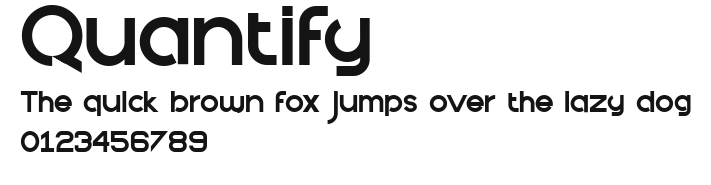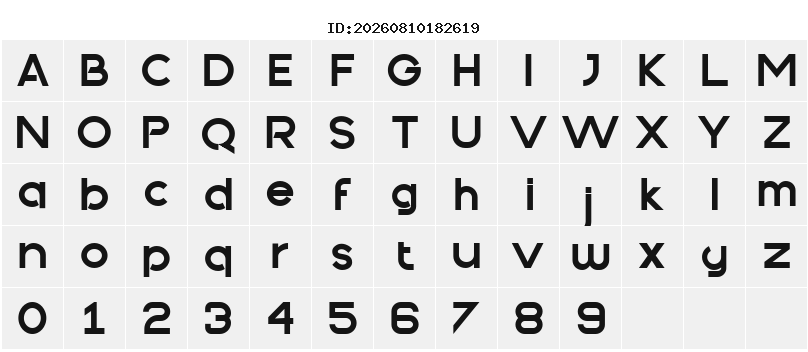
• Font Name: Quantify
• Full Font Name: Quantify Bold
About Quantify.ttf
Quantify.ttf is a modern, elegant sans-serif font designed for ultimate readability and visual harmony. Perfect for branding, headlines, web design, and print materials.